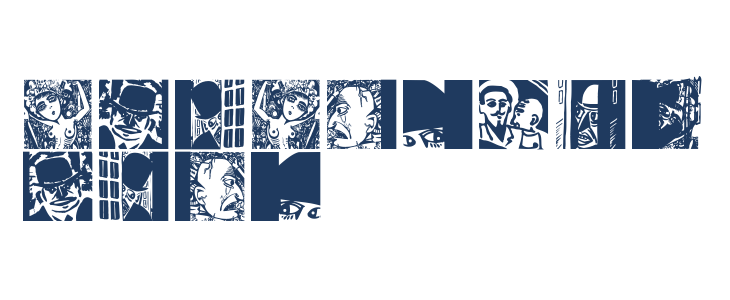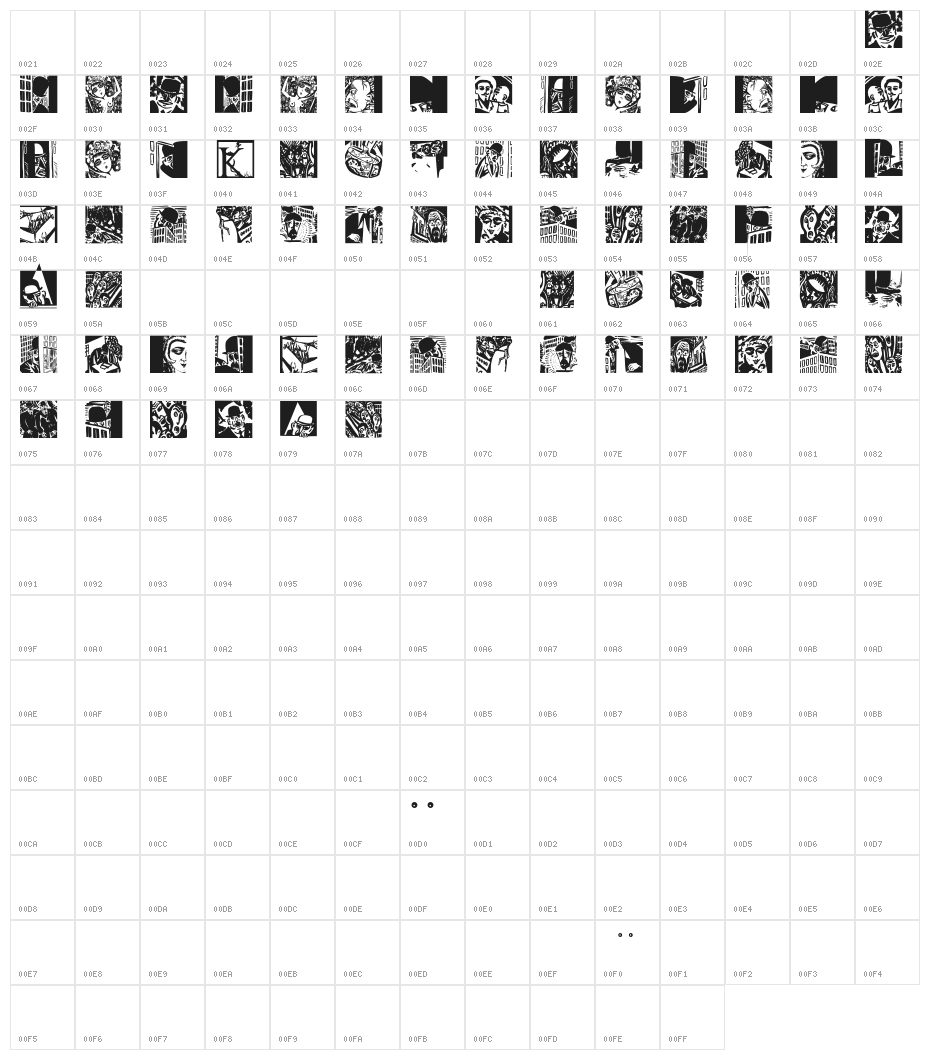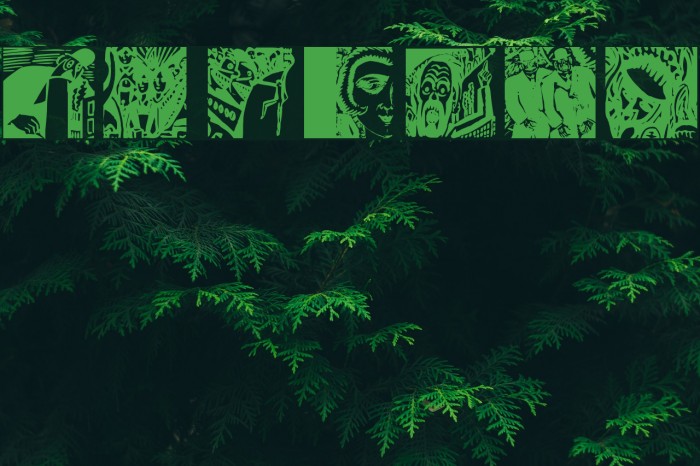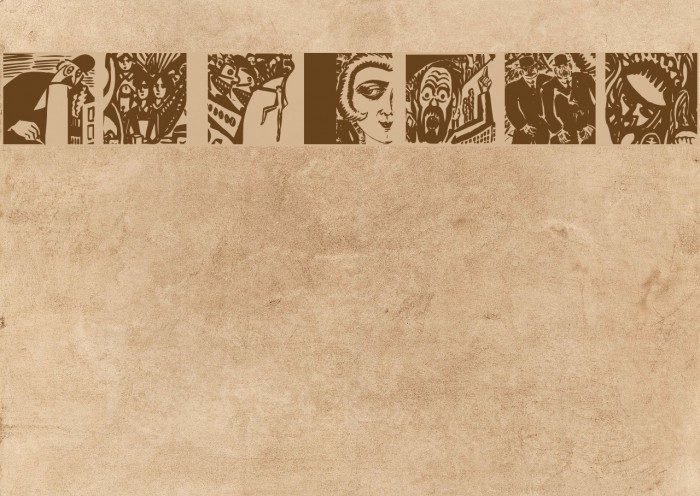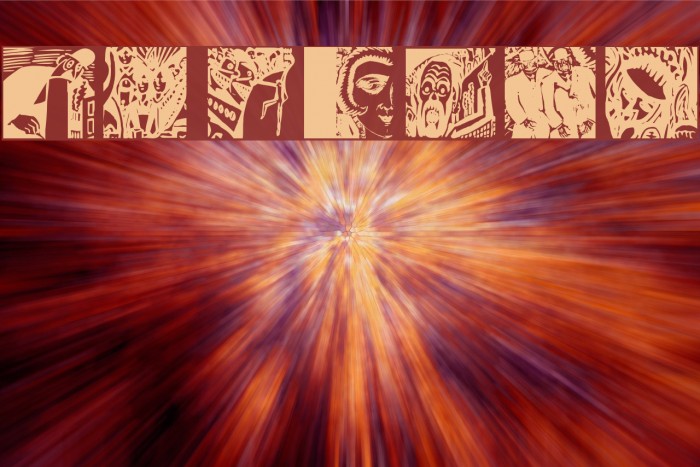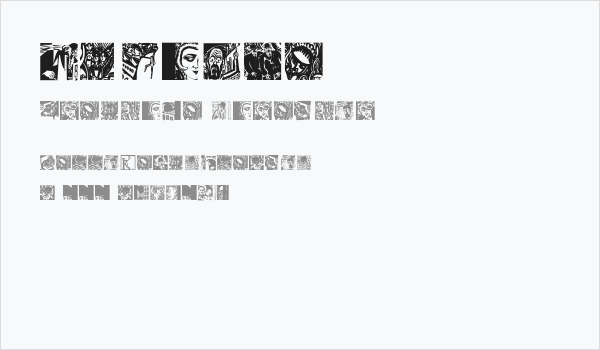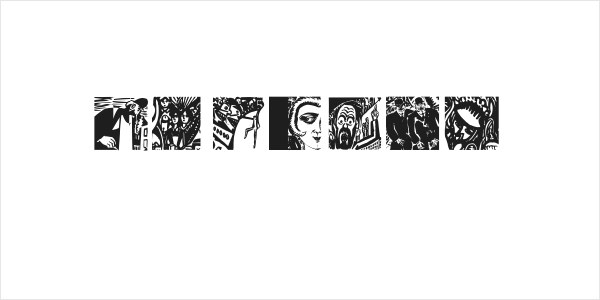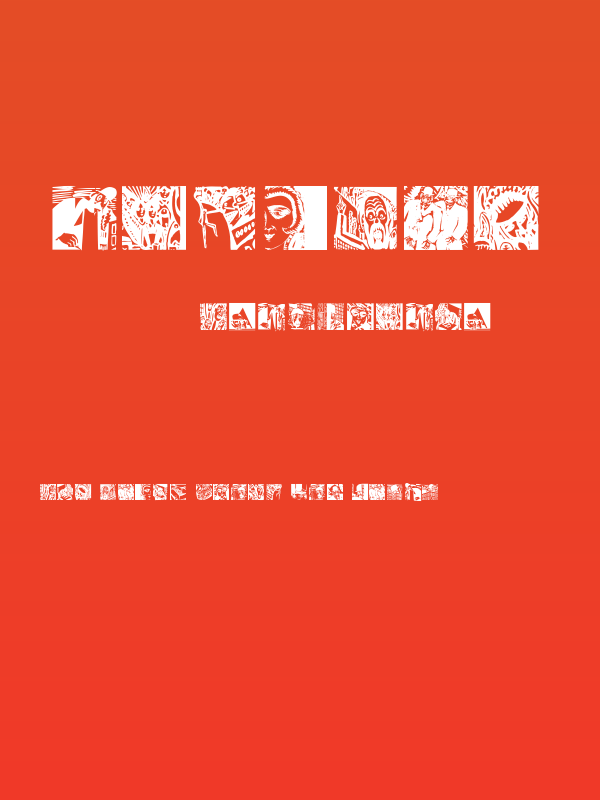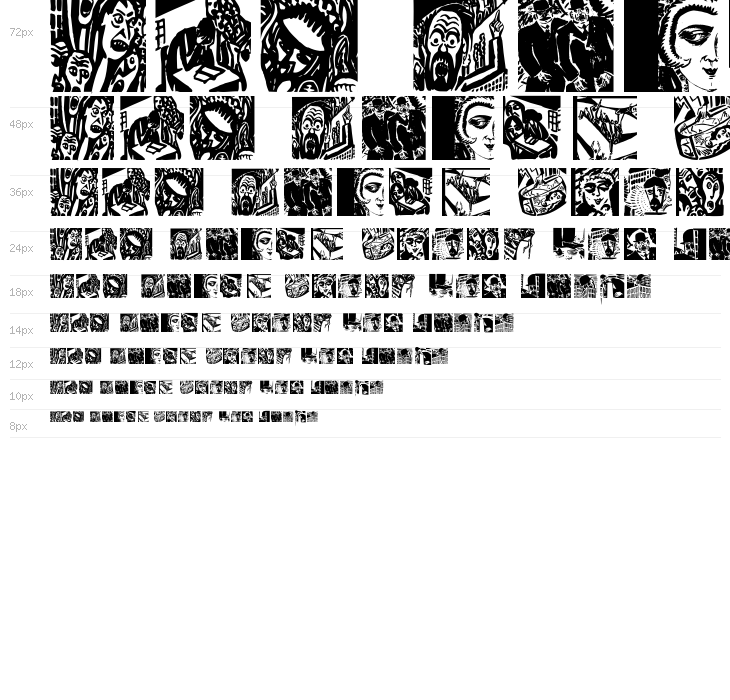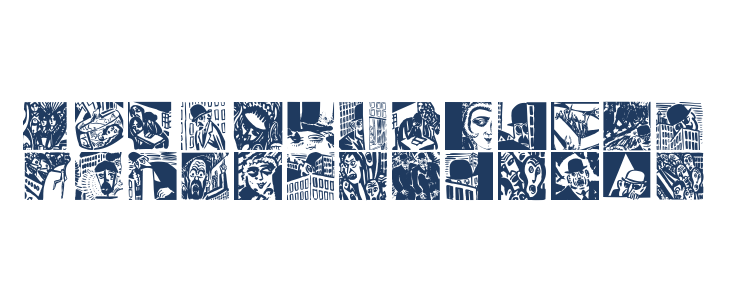
Panique Font
Panique Description
This font is a highly decorative and artistic typeface that incorporates intricate illustrations within each character. Each letter and symbol is uniquely designed with detailed imagery that appears to tell a story or depict a scene, reminiscent of graphic novel or comic book art. The characters are bold and visually striking, making them suitable for creative and expressive design projects. The style is reminiscent of woodcut or linocut prints, with strong contrasts between black and white areas, adding to the dramatic effect. This typeface is not meant for body text due to its complexity but serves as an eye-catching element in any design.
| Use Case | Logos, Headlines, Posters |
| Proposed Projects | Ideal for graphic novels, comic book covers, posters, album art, and other creative projects that benefit from a bold and artistic touch. |